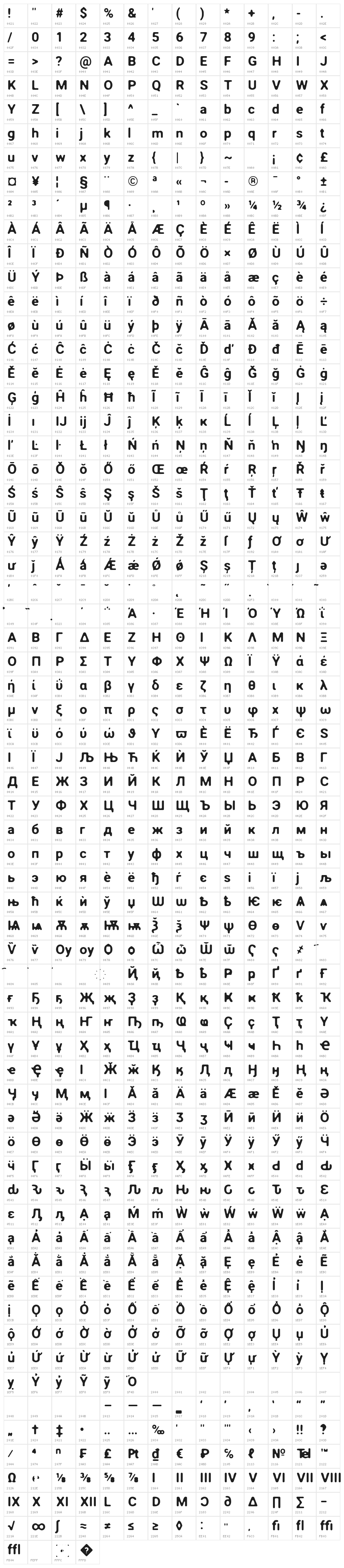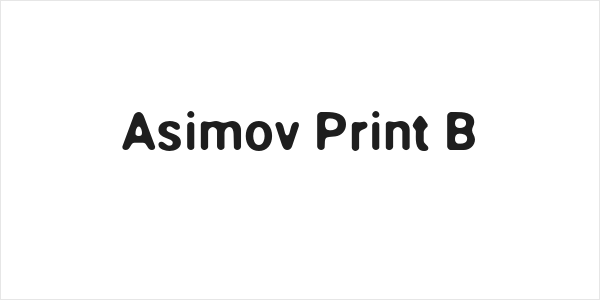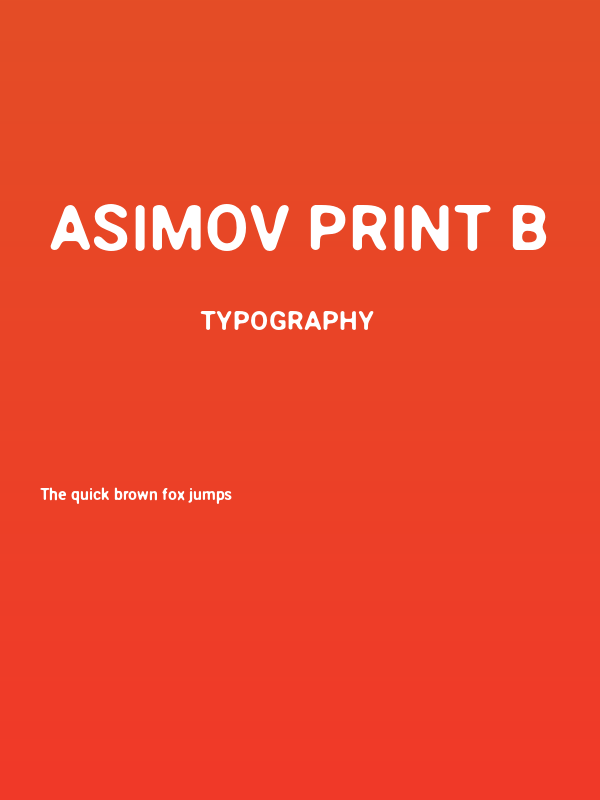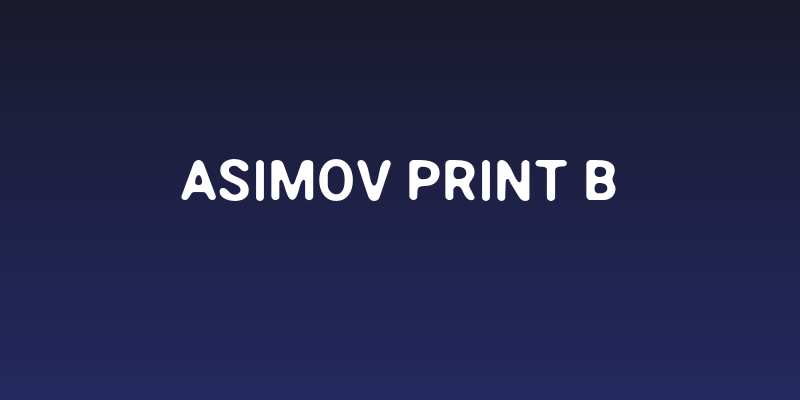
Asimov Print B Font
Asimov Print B Description
This font features a bold and rounded style, characterized by its smooth, curved edges and uniform stroke width. The letters are evenly spaced, providing a clean and modern appearance. The uppercase and lowercase characters maintain a consistent design, with a playful yet professional look. The numerals are clear and easily distinguishable, making them suitable for various applications. Special characters are well-integrated, enhancing the font's versatility. Overall, this typeface exudes a friendly and approachable vibe, making it ideal for projects that require a touch of warmth and modernity.
| Proposed Projects | Ideal for branding, packaging, children's books, and digital media where a modern and approachable look is desired. |